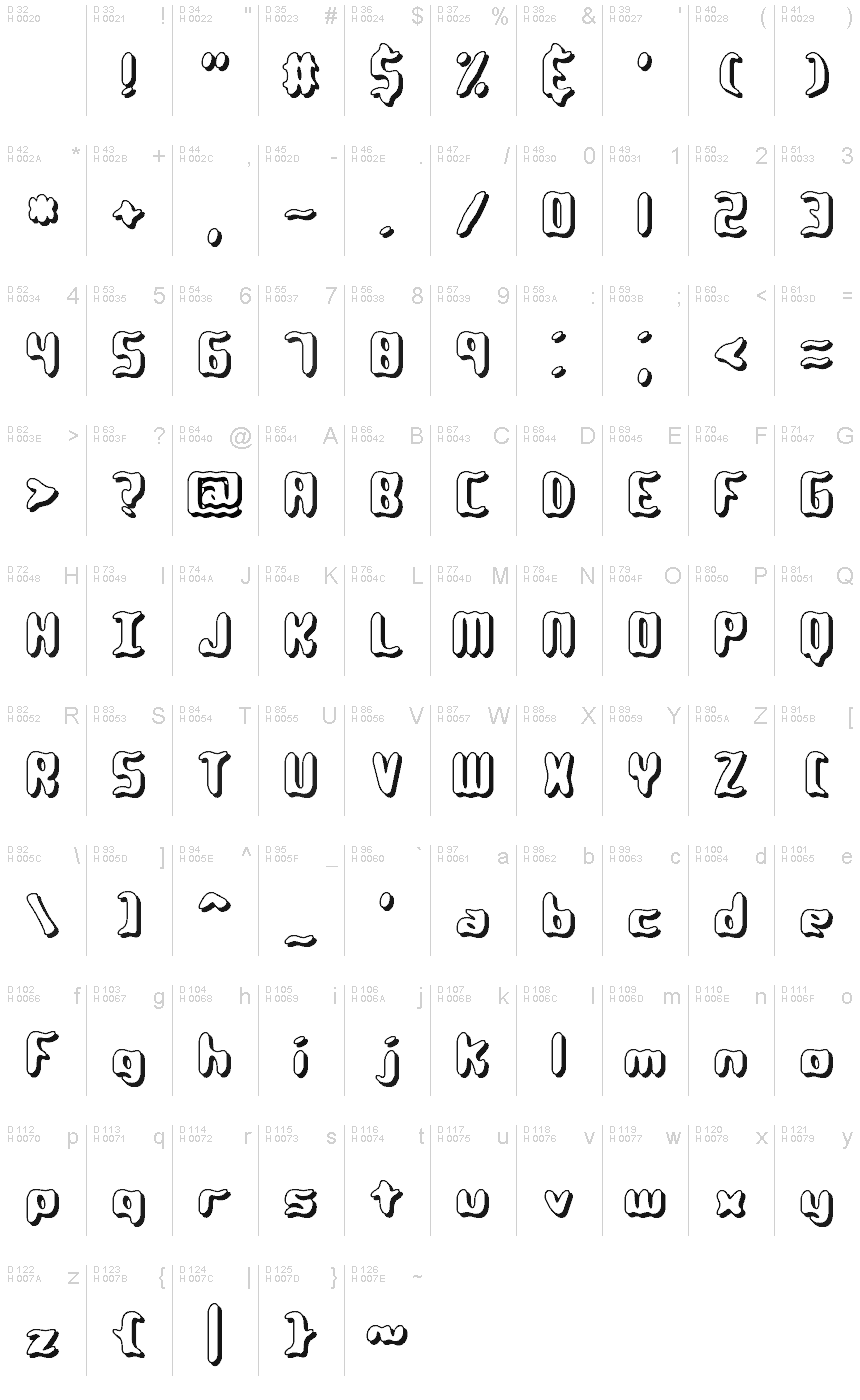
Qlumpy Shadow BRK
Qlumpy Shadow BRK is a whimsical addition to the Qlumpy font family by ÆNIGMA FONTS, showcasing an intriguing blend of playful contours and bold shadowing that instantly captures the eye. This display typeface, with its bulbous, fun-filled character shapes and distinctive shadows, adds depth and a touch of quirkiness to any design. Its aesthetic appeal lies in its ability to evoke a sense of fun while maintaining readability, making it an excellent choice for creative projects that require a friendly and inviting vibe.
Whether it's for eye-catching headers, unique logos, or engaging promotional materials, Qlumpy Shadow BRK stands out with its unique style and presence, promising to infuse your designs with personality and charm.